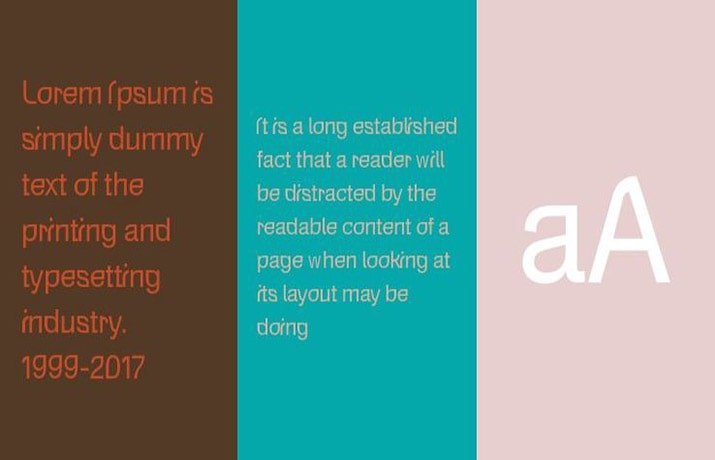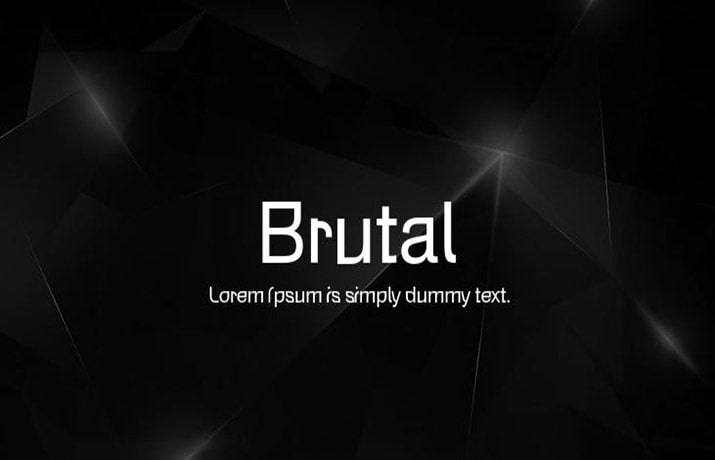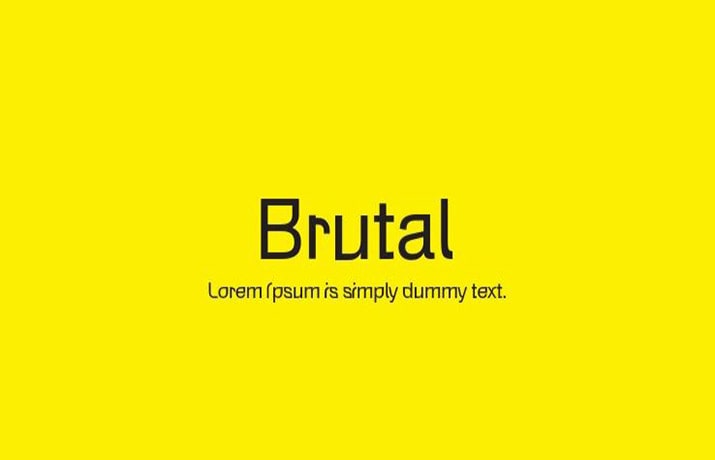
Today we are glad to introduce a new font family called Brutal Font. It is a fancy typeface alphabet that will make your logos, titles, or signage stand out.
Versatile marketing professional designer Nathan Mandon is known as the primary designer of this typeface.
It’s a fancy type that has a unique appearance. Its texture is created in an irregular way which surely gives a techno appearance.
Another great aspect of it, you can certainly combine it with other stylish fonts. Therefore, its scope is increasing day by day.
Font Name: | Brutal Font Family |
Style: | Fancy, Various, Techno |
Font Designer: | Nathan Mandon |
Due to its magnificent texture, you can create movie posters, flyers, mugs printing, special quotes, game titles, game development, techno documents, product packaging, comic covers, cartoon covers, stationery, and so on.